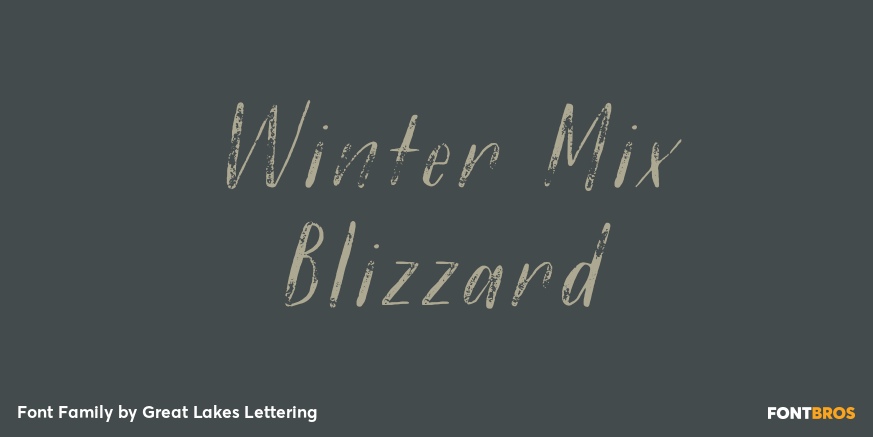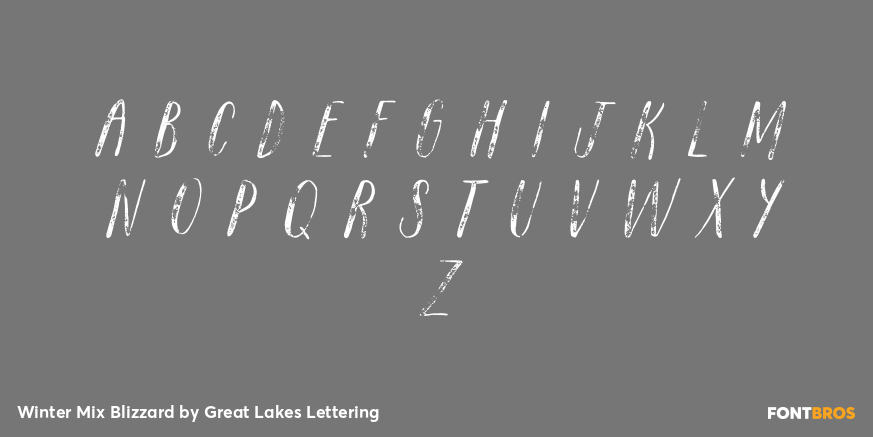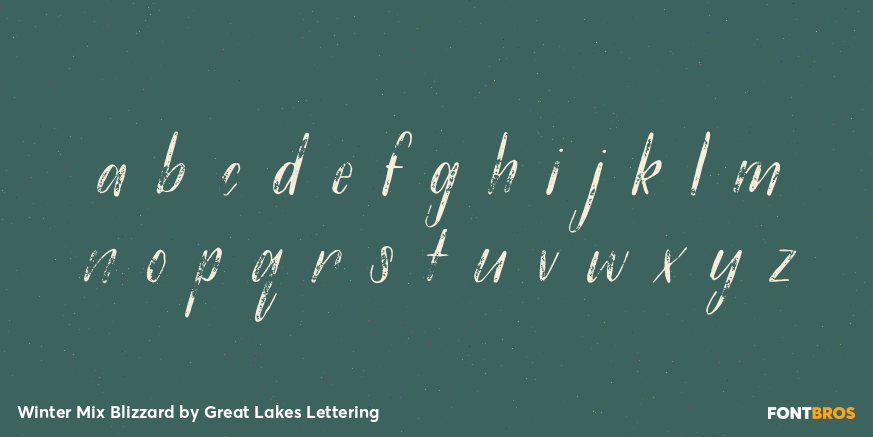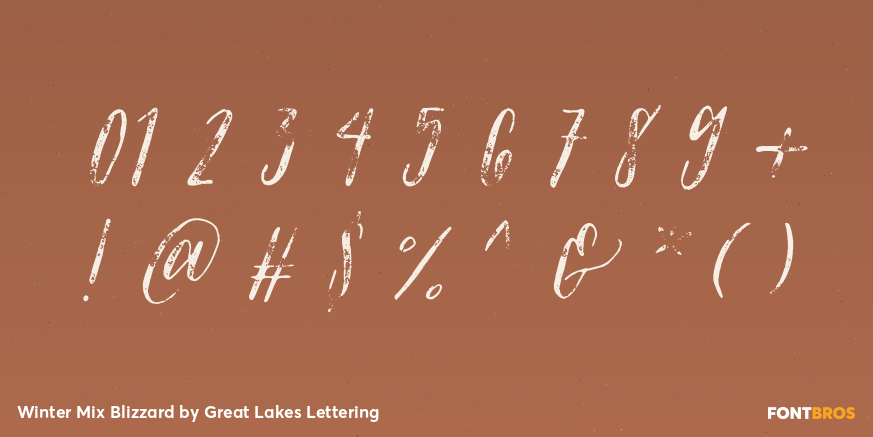
Winter Mix Blizzard
Font Family by Great Lakes Lettering
Buy NowTo help usher in the first snowfall in the Upper Mid West, we are releasing Winter Mix Blizzard. A grand collection of weatherworn handmade fonts.